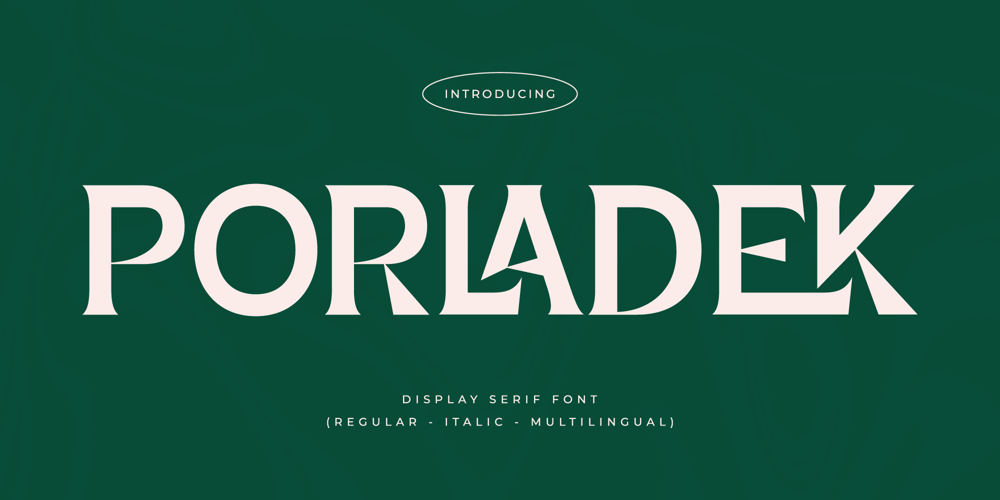
Porladek Font Family was designed by Heru Utama Putra and published by Letterena Studios. Porladek contains 2 styles and family package options. Porladek is a modern and classic serif typeface that has its own unique style and modern look. This typeface is perfect for an elegant & luxury logo, book or movie title design, fashion brand, magazine, clothes, lettering, quotes, and so much more.